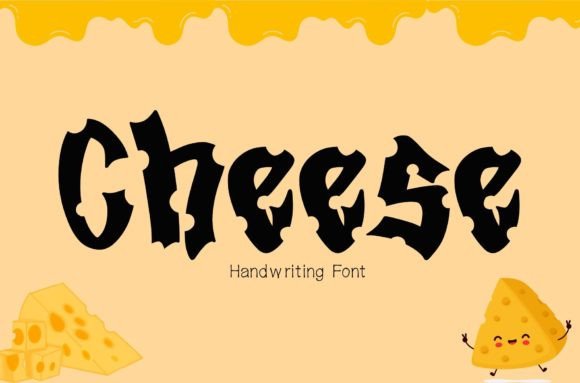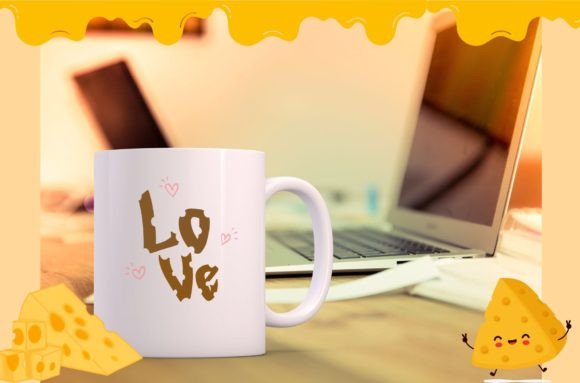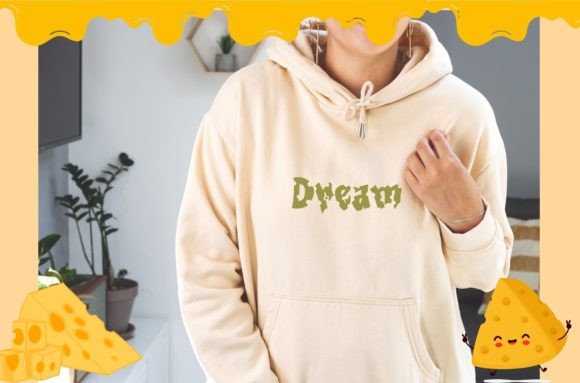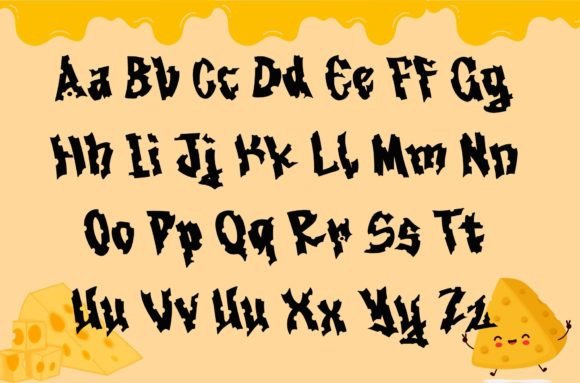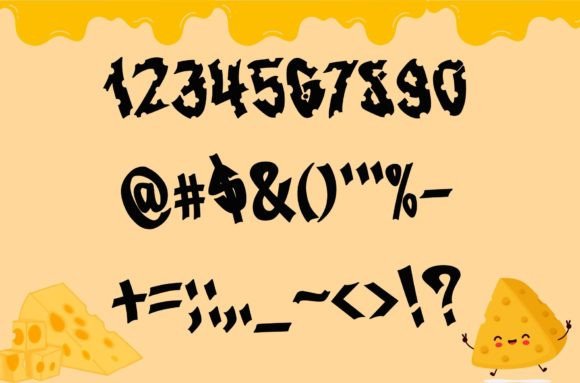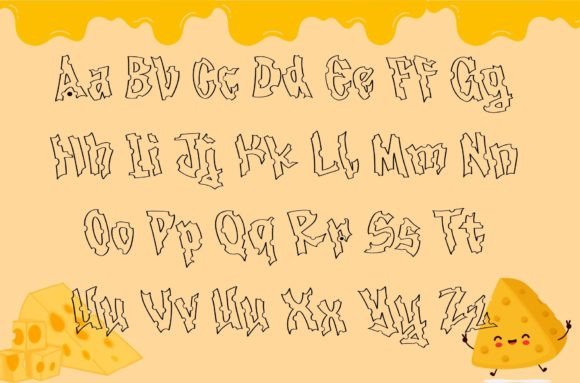
Introducing Cheese Font: The Perfect Blend of Fun and Creativity
Are you tired of using the same old fonts for your designs? Do you want to add a touch of playfulness and whimsy to your branding and packaging projects? Look no further than Cheese Font! This delightful font is designed to bring a smile to your audience’s faces and make your designs stand out from the crowd.
What is Cheese Font?
Cheese Font is a unique and creative typeface that is perfect for designers and crafters looking to add a dash of fun to their work. With its playful and quirky design, Cheese Font is sure to grab attention and leave a lasting impression. Whether you’re working on a branding project, packaging design, or social media graphics, Cheese Font is the perfect choice.
Key Features of Cheese Font
- Unique and Creative Design: Cheese Font features a one-of-a-kind design that is sure to make your designs stand out.
- Playful and Whimsical: The font’s playful and whimsical design makes it perfect for projects that require a touch of fun and personality.
- Highly Versatile: Cheese Font can be used on a variety of projects, from branding and packaging to social media graphics and more.
- Easy to Read: Despite its playful design, Cheese Font is easy to read and understand, making it perfect for use on a wide range of projects.
Why Choose Cheese Font?
So why choose Cheese Font for your next design project? Here are just a few reasons:
- Adds a Touch of Personality: Cheese Font adds a touch of personality and whimsy to your designs, making them more engaging and memorable.
- Perfect for Branding and Packaging: The font’s playful design makes it perfect for use on branding and packaging projects, where you want to make a lasting impression.
- Great for Social Media Graphics: The font’s playful design makes it perfect for use on social media graphics, where you want to grab attention and stand out.
Tips and Tricks for Using Cheese Font
Here are a few tips and tricks for getting the most out of Cheese Font:
- Use it for Headings: Cheese Font is perfect for use on headings and titles, where you want to make a bold statement.
- Experiment with Colors: The font’s playful design looks great in a variety of colors, so don’t be afraid to experiment and find the perfect color for your project.
- Pair it with Other Fonts: Cheese Font can be paired with other fonts to create a unique and interesting design.
In conclusion, Cheese Font is a fun and playful font that is perfect for designers and crafters looking to add a touch of whimsy to their designs. With its unique and creative design, Cheese Font is sure to grab attention and leave a lasting impression. Whether you’re working on a branding project, packaging design, or social media graphics, Cheese Font is the perfect choice. So why wait? Download Cheese Font today and start creating fun and playful designs that will delight your audience!